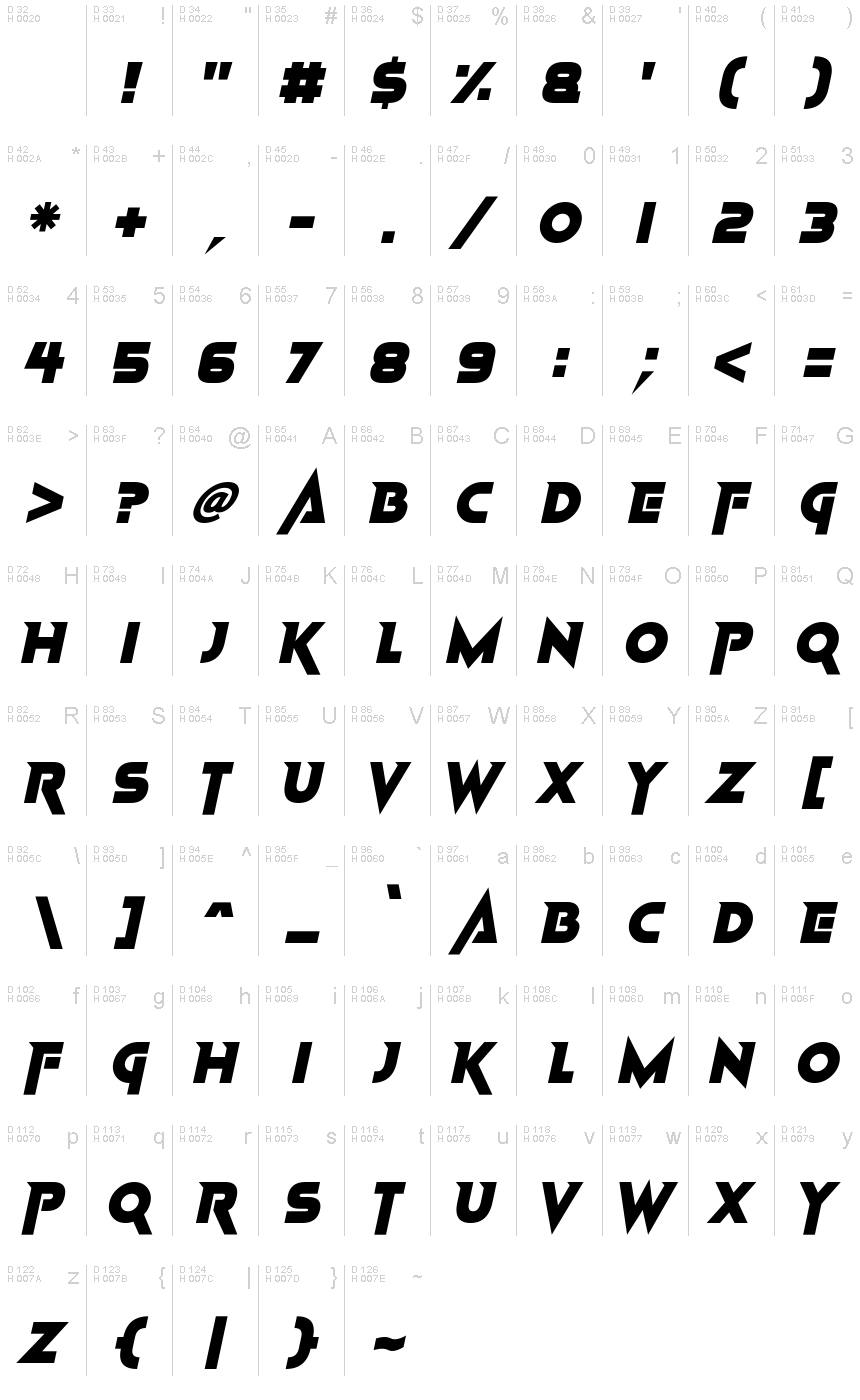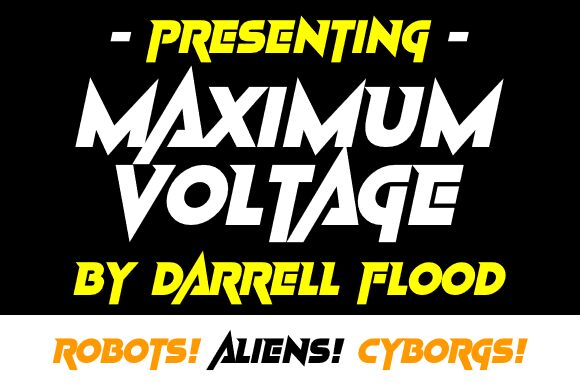
Maximum Voltage Italic
Maximum Voltage Italic, masterfully designed by Hawtpixel, is a striking example of modern gothic typography. With a bold presence, this font commands attention through its dynamic and energetic lines. The italicized angle infuses each character with a sense of motion, embodying both strength and speed.
Perfectly suited for projects requiring an edgy and electrifying touch, Maximum Voltage Italic excels in branding for tech conventions, sports apparel, and cutting-edge advertising campaigns. Its robust form ensures readability while delivering an unmistakable impact that leaves a lasting impression. Embrace the power of Maximum Voltage Italic to electrify your designs with its bold and modern aesthetic.